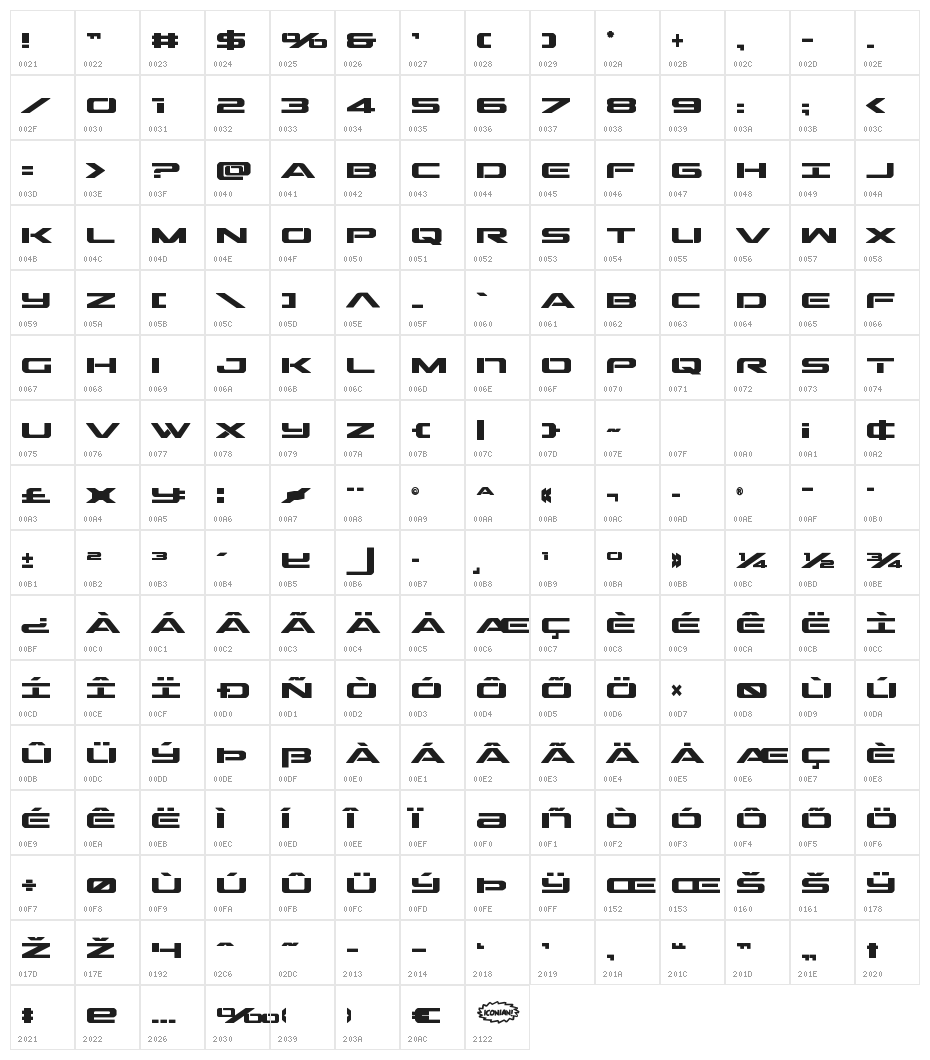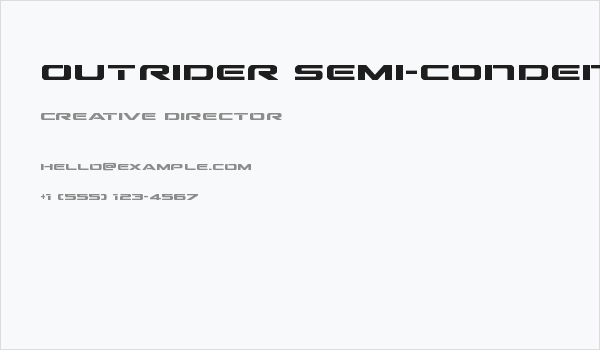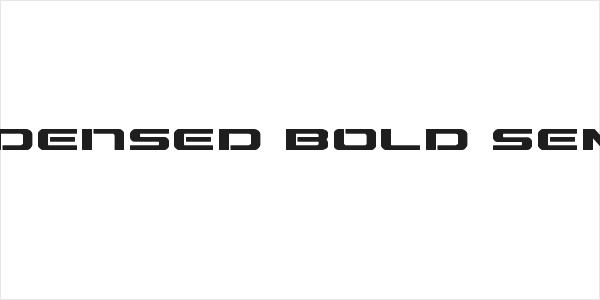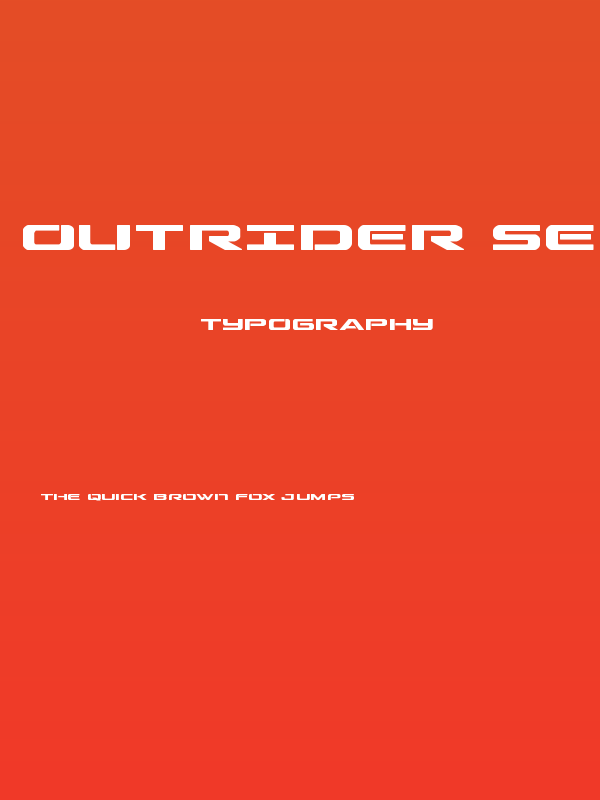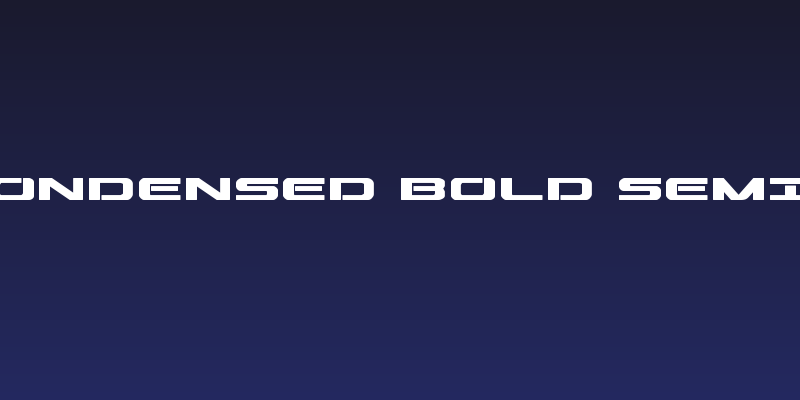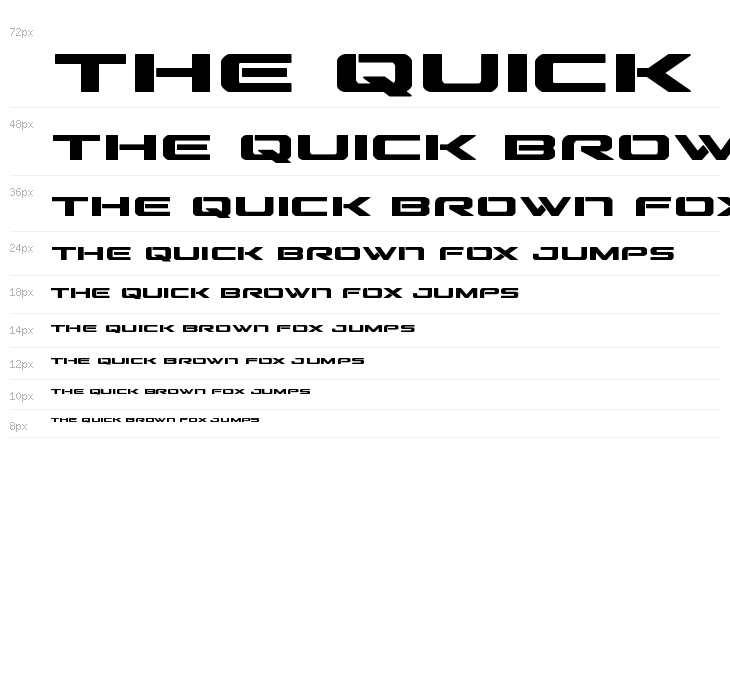
Outrider Semi-Condensed Bold Font
Outrider Semi-Condensed Bold Description
This font features a bold and semi-condensed style, characterized by its strong geometric shapes and futuristic appearance. The uppercase letters are uniform in height, with sharp angles and a consistent stroke width that gives it a modern and technical feel. The lowercase letters maintain the same boldness and geometric precision, ensuring readability while adding a unique flair. Numbers and special characters follow the same design principles, making them easily distinguishable and cohesive with the overall style. The font's semi-condensed nature allows for efficient use of space, making it suitable for various design applications.
| Proposed Projects | Ideal for technology branding, video game titles, sci-fi movie posters, and modern web design. |